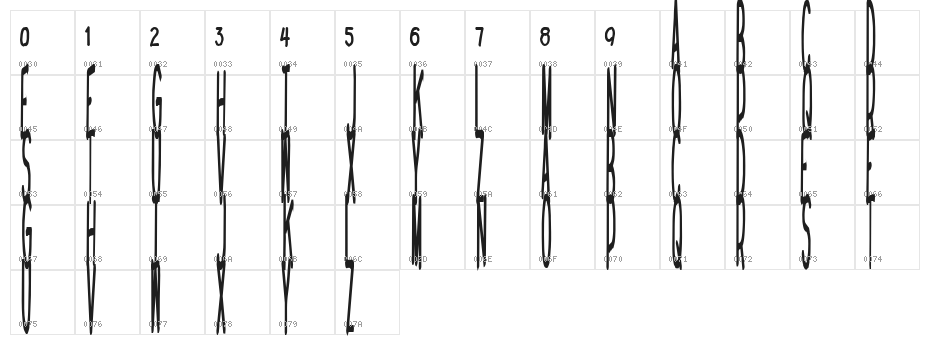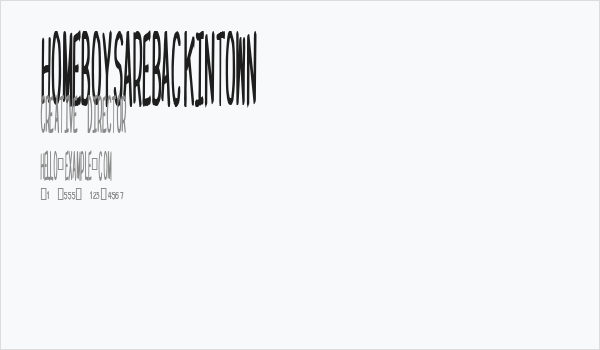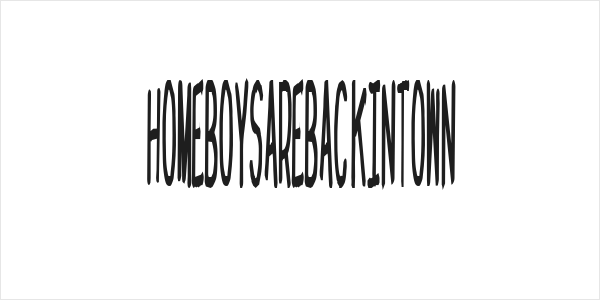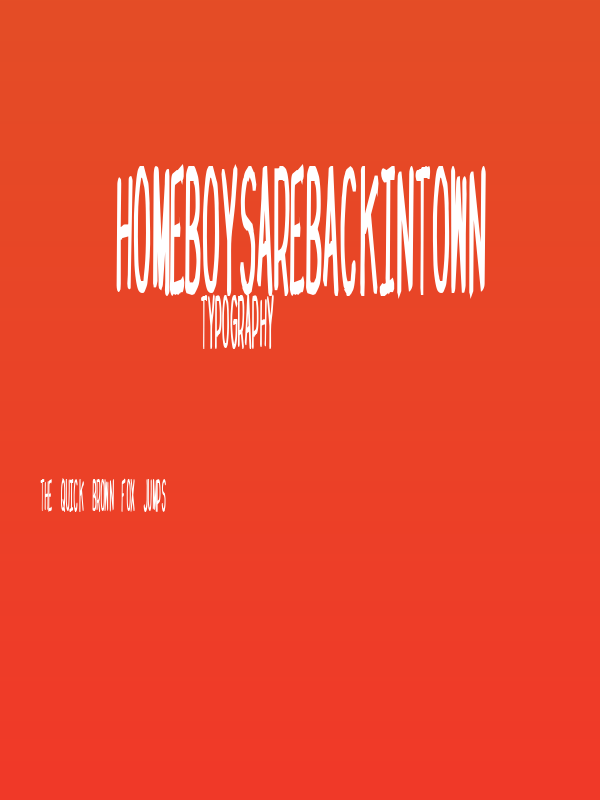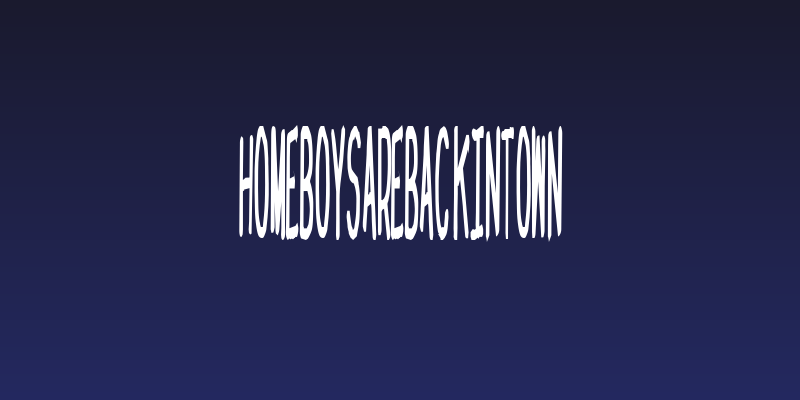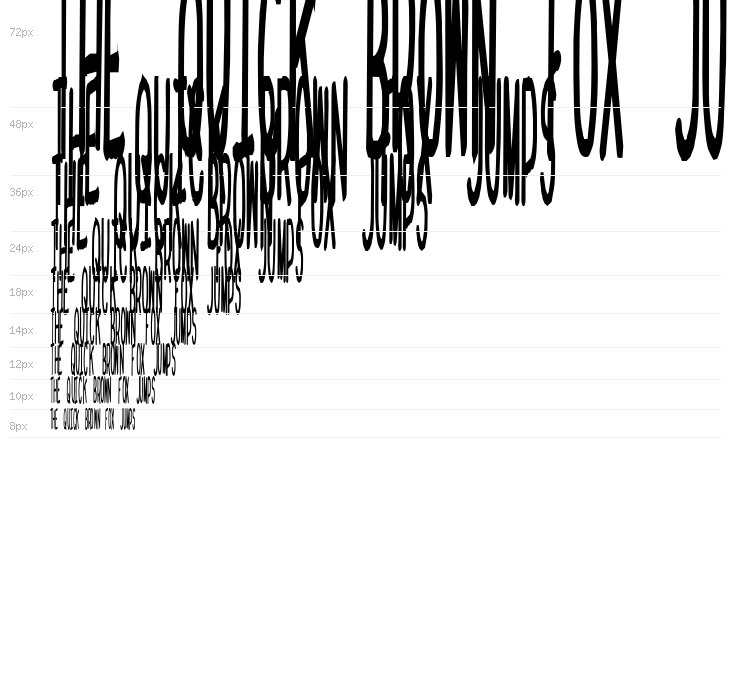
homeboysarebackintown Font
homeboysarebackintown Description
This font features a highly condensed and bold style, with each character elongated vertically. The uppercase letters are tightly packed, creating a sense of urgency and intensity. The numerals follow the same condensed style, maintaining consistency across the typeface. The overall appearance is striking and modern, with a unique flair that makes it stand out. The font lacks lowercase letters and special characters, focusing on a minimalist yet impactful design.
| Proposed Projects | Ideal for posters, headlines, and branding projects that require a bold statement. |